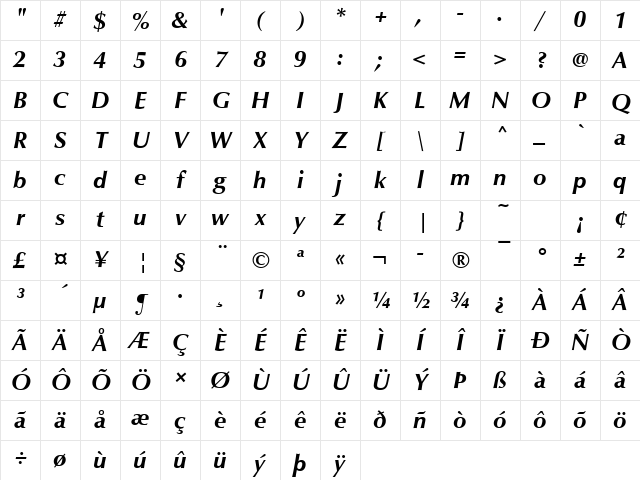
Classico Becker Bold Italic
Classico Becker Family
Complete Classico Becker Bold Italic glyph index. Displaying only characters natively supported by Classico Becker Bold Italic font.
Design Context for Classico Becker
Classico Becker wears its vintage influences proudly, with letterforms that recall mid-century signage, classic packaging, and nostalgia-driven design. The slanted form adds forward momentum and visual energy. Its bold stroke weight gives it real presence on the page.
Font Pairing: Combine Classico Becker with a simple slab or neutral sans - period-accurate companions reinforce the vintage feel without competing for attention.
Pro Tip: Lean into Classico Becker's period character by pairing it with aged paper textures, muted colour palettes, and vintage illustration styles.